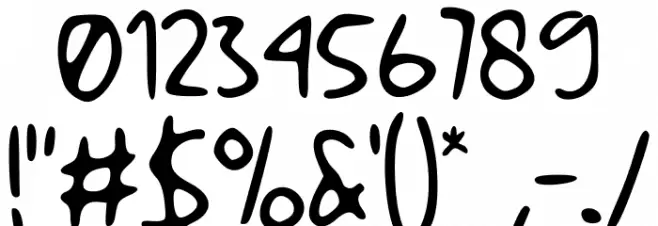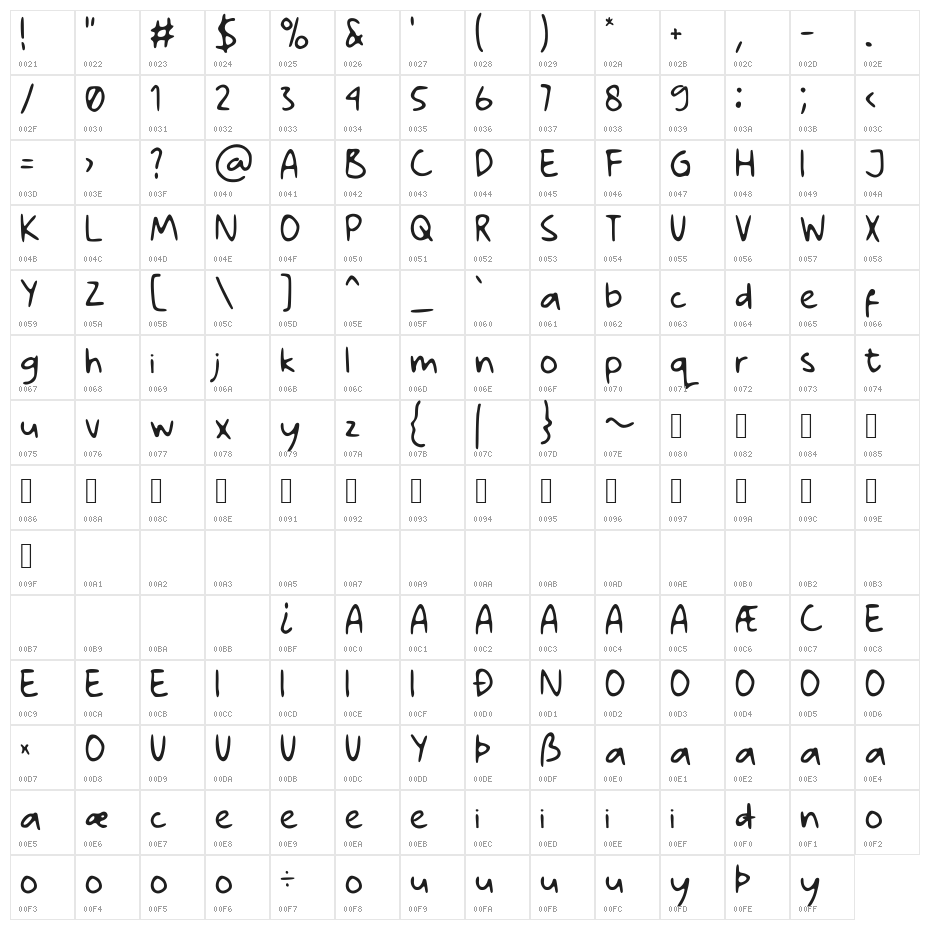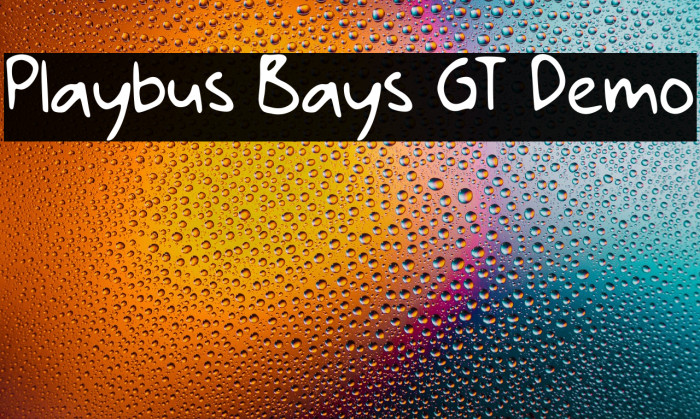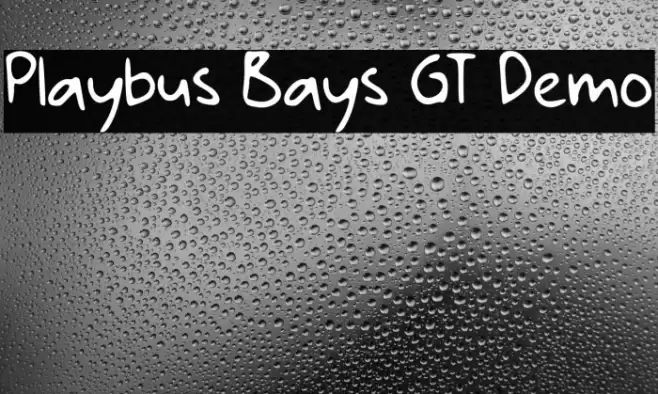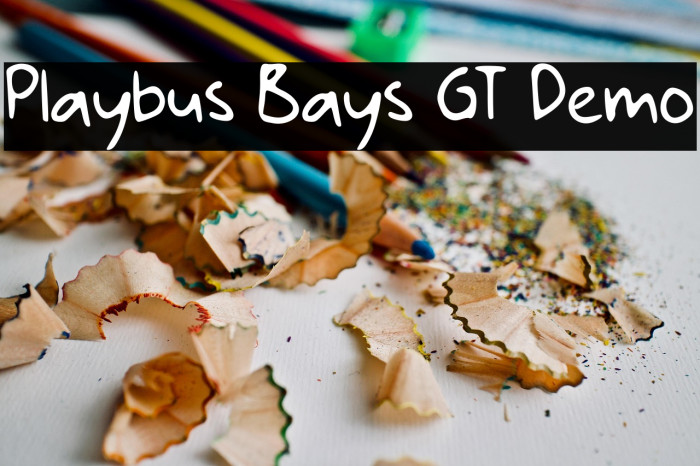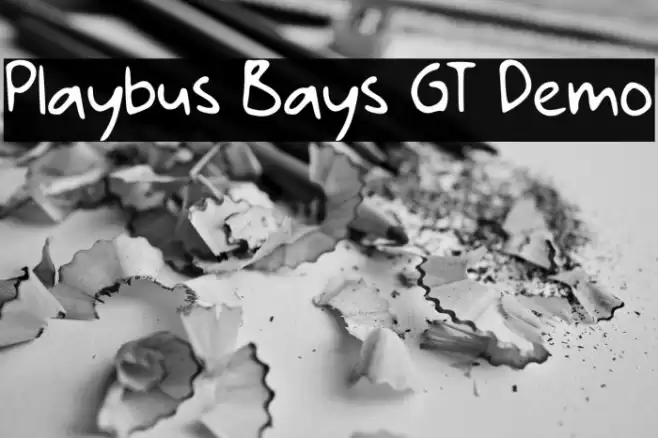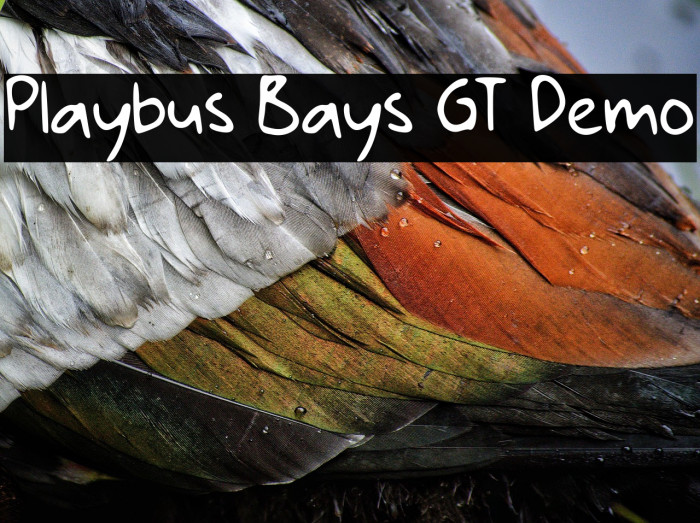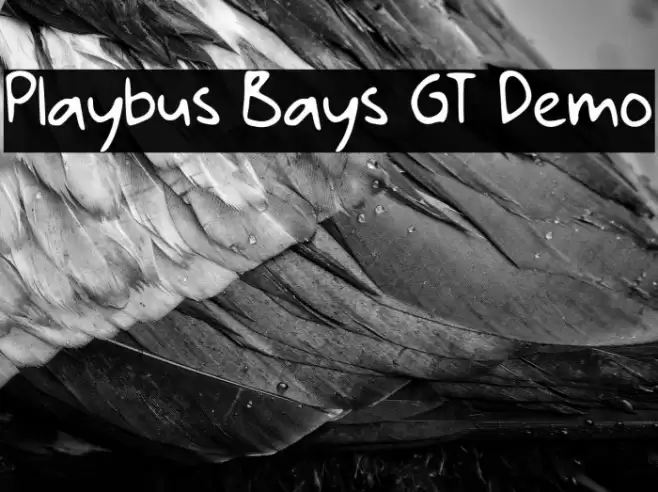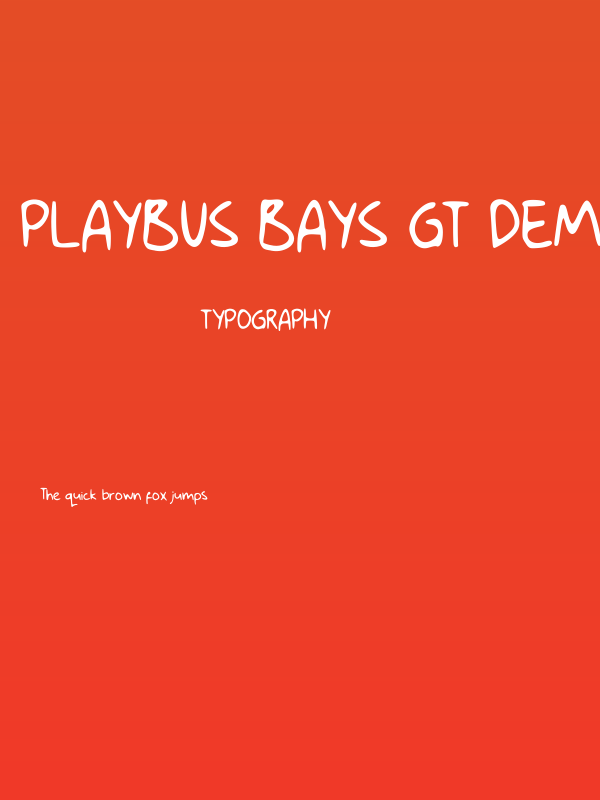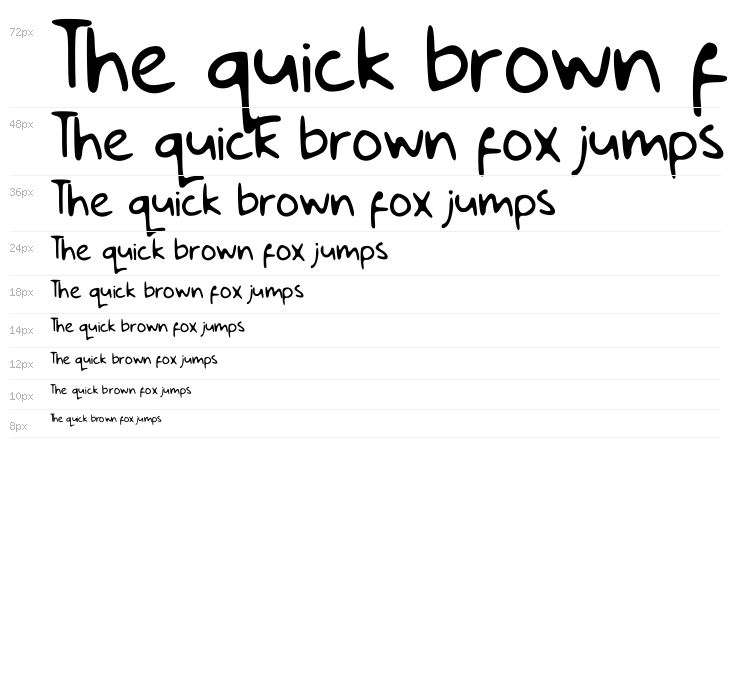
Playbus Bays GT Demo Font
Playbus Bays GT Demo Description
This playful and energetic font features a handwritten style with a casual, informal appearance. The characters are bold and rounded, giving a friendly and approachable feel. The uppercase and lowercase letters maintain a consistent style, with slightly exaggerated curves and loops that add to the whimsical nature. Numbers and special characters follow the same playful design, making it versatile for various uses. The overall look is dynamic and lively, perfect for capturing attention in creative projects.